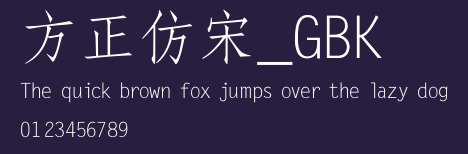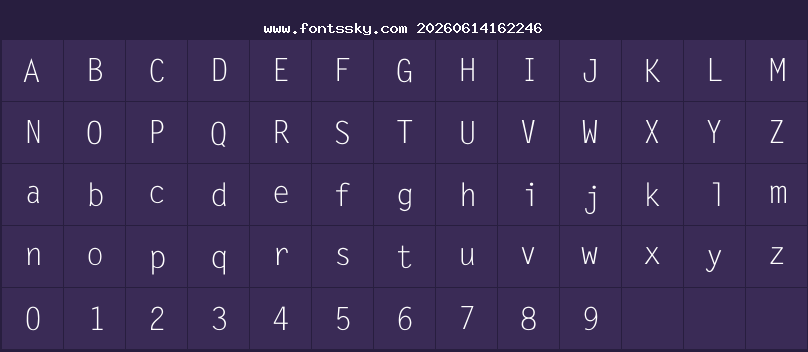
About 方正仿宋_GBK.ttf
方正仿宋_GBK.ttf is a modern, elegant sans-serif font designed for ultimate readability and visual harmony. Perfect for branding, headlines, web design, and print materials.